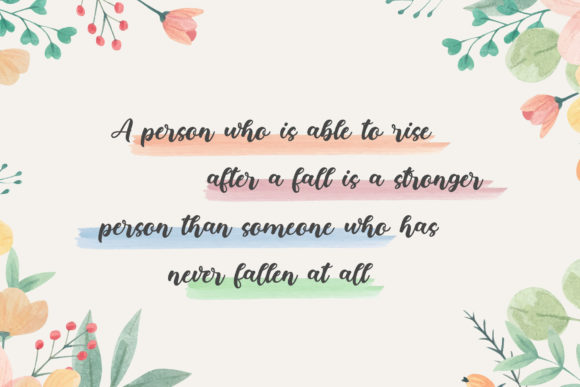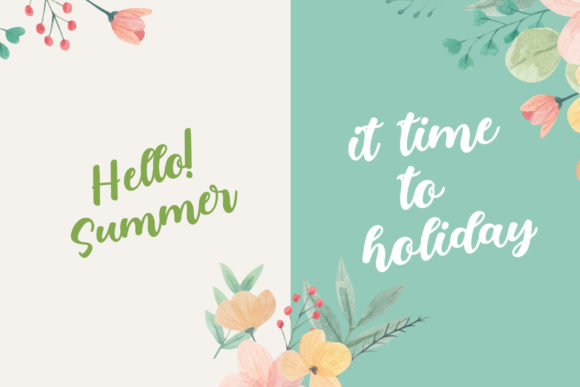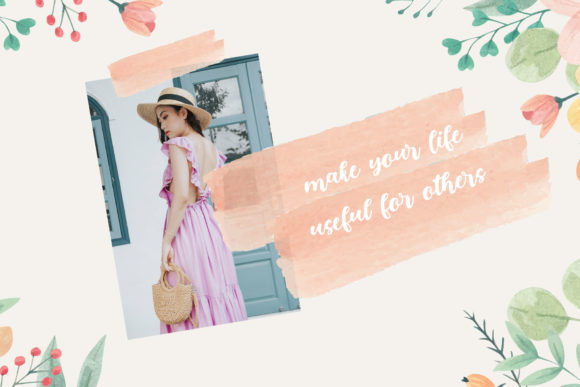
Introduction to Love Shine Font
Have you ever been working on a design project, pouring your heart and soul into every detail, and then suddenly, you need that perfect font to bring everything together? That’s exactly what happened to me when I was designing a wedding invitation for a close friend. I was browsing through various design resources, searching for the perfect handwritten font that would convey the love and happiness of the occasion. And then, I stumbled upon the Love Shine Font – a unique and elegant handwritten font that left me breathless.
With its beautiful and personalized style, the Love Shine Font is a valuable resource for designers looking to add a touch of sophistication to their creative projects. Whether it’s a wedding invitation, a thank you card, or a logo, this font is sure to shine and leave a lasting impression. And the best part? It’s free to download and comes with a transparent background, making it easy to use and customize.
As a designer, having access to high-quality design resources like the Love Shine Font can be a game-changer. It allows us to focus on what we do best – creating beautiful and meaningful designs that touch people’s hearts. So, if you’re looking to elevate your design skills and add a personal touch to your projects, look no further than the Love Shine Font.
Key Features of Love Shine Font
- High-quality design resource suitable for creative projects, including wedding invitations, greeting cards, and other romantic designs.
- Designed with love and care, this font is perfect for adding a touch of romance and elegance to your creative project.
- Includes 12 unique characters, each carefully crafted to convey a sense of love and joy, making it a must-have for designers looking to add a personal touch to their work.
Honest Review: Love Shine Font
As a designer, I’m always on the lookout for high-quality design resources to enhance my creative projects. The Love Shine Font is one such resource that caught my attention.
- ✨ The font has a beautiful, modern design that can be used for a variety of projects, from romantic greeting cards to stylish product packaging.
- ⚠️ The font may not be suitable for projects that require a more serious or formal tone, as it has a playful and romantic feel.
Overall, I’m impressed with the Love Shine Font’s design quality and versatility. It’s an excellent addition to any designer’s toolkit, and I’d highly recommend it for creative projects that require a touch of romance and whimsy.